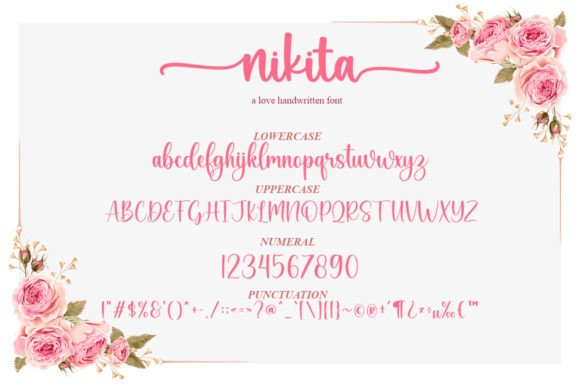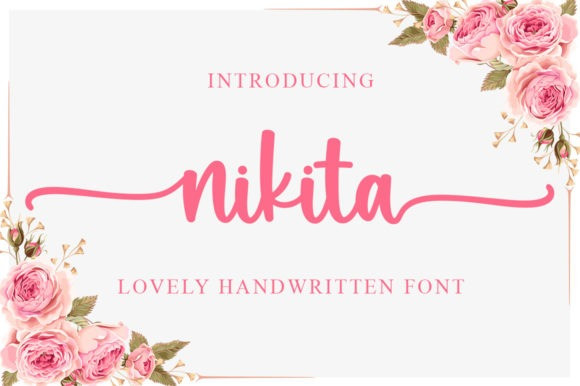
Nikita Typeface
Nikita Typeface, is a delicate and refined script font that emanates sophistication and elegance. Its stylish alternates and ligatures make this font the perfect match for any project.